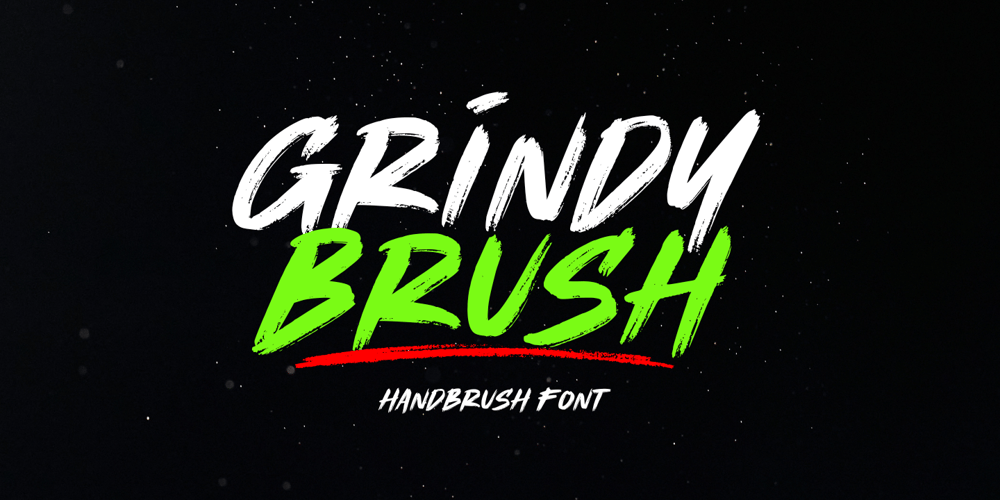
Grindy Brush Font Family was designed by Muhamad Yusron Billah and published by Sronstudio. Grindy Brush contains 1 styles and family package options. Grindy Brush is a bold and dynamic handbrush font with a raw, textured style. Perfect for posters, logos, and creative designs, it brings an energetic and artistic touch to your projects!Included:- Upper & Lowercase- Numeral & Punctuation- PUA Encoded- Multilingual support- Simple Installation- Work both on Mac and WindowsThank you very much 🙂